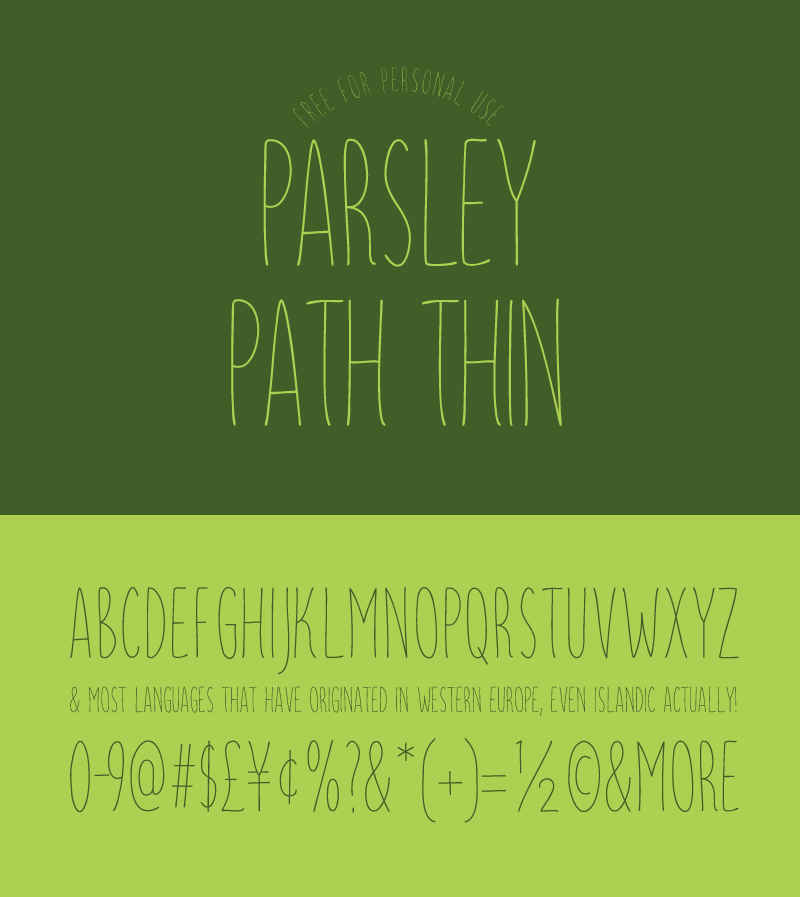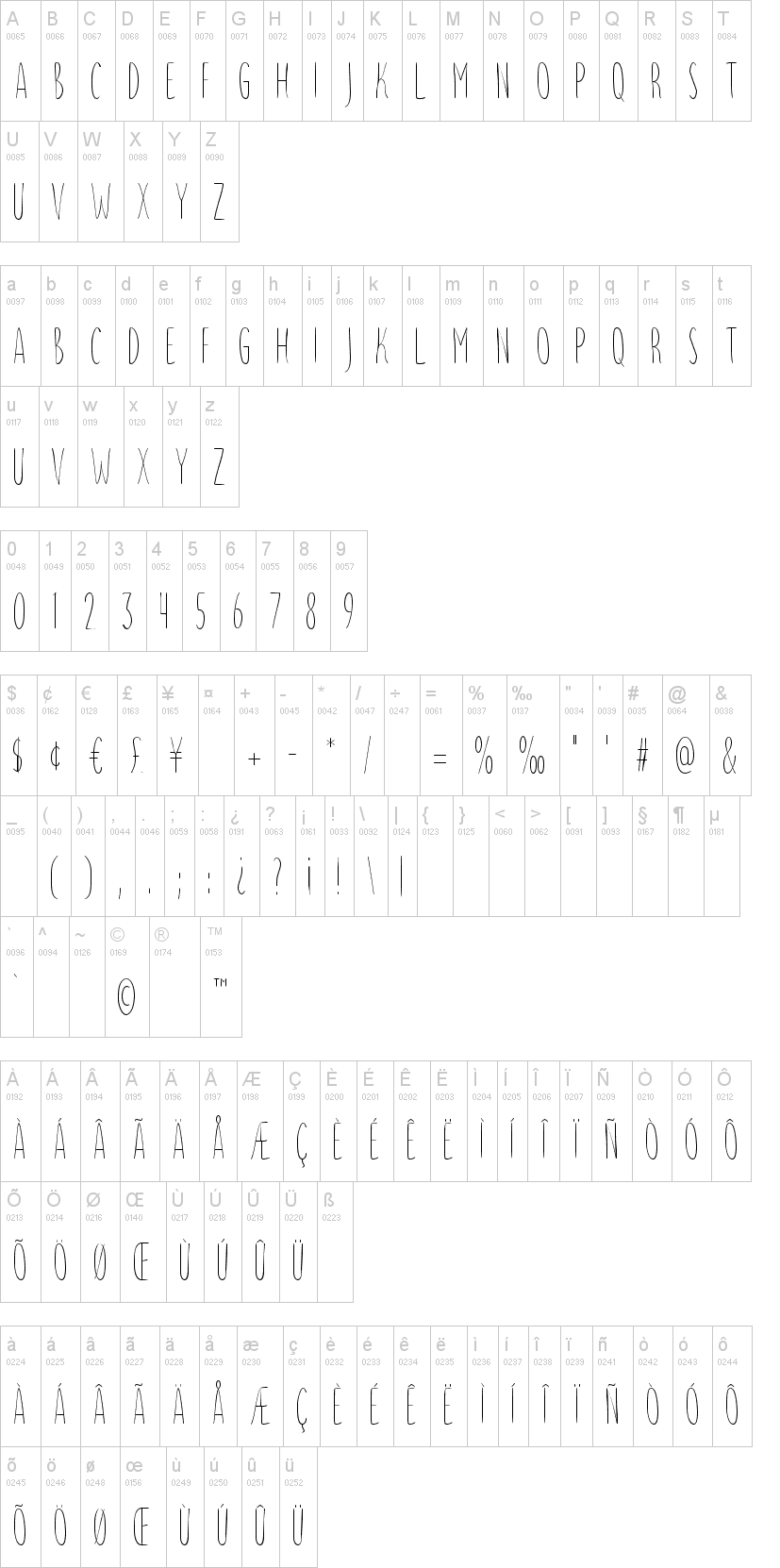
Parsley Path
Note of the authorParsely Path is a nice condensed handwritten typeface for logos, invitations, menus or anything you want.
The font supports at least english, french, spanish, german, portuguese, swedish, danish, finish and even islandic.